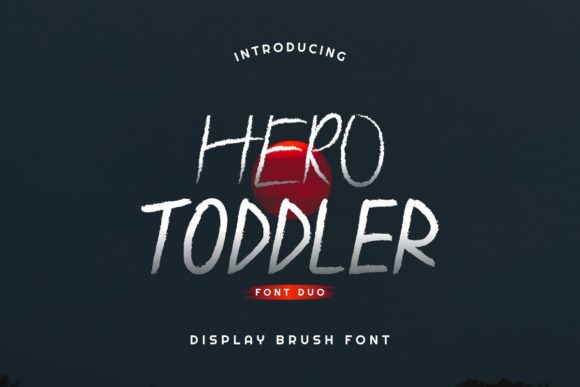
Behold Hero Toddler, the display font that ignites imagination and captivates hearts. Crafted with meticulous attention to detail, each character exudes a playful innocence that instantly uplifts any space. Whether you seek to craft enchanting invitations, add a touch of whimsy to your art projects, or create a playful atmosphere on your social media, Hero Toddler stands ready to deliver.
With its endearingly imperfect curves and generous x-height, Hero Toddler invites you into a world of boundless creativity. The font's slightly condensed glyphs dance harmoniously, forming words that exude an aura of friendliness and approachability. Each letter, crafted with a touch of nostalgia, evokes fond memories of childhood and the magic of storytelling.
Embrace Hero Toddler and watch as your designs come alive with a charm that is both timeless and endearing. This font is not just a collection of characters; it's a celebration of imagination, a spark that ignites creativity, and a reminder that playfulness knows no bounds.
Step into the world of Hero Toddler and let your imagination run wild.